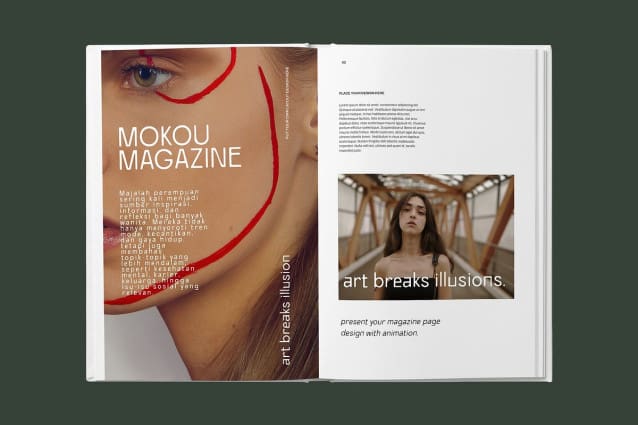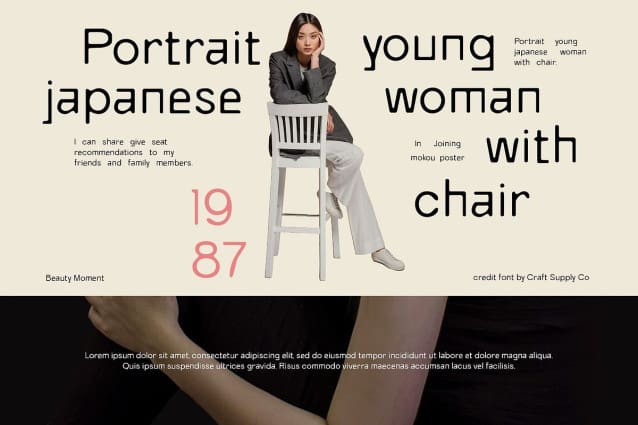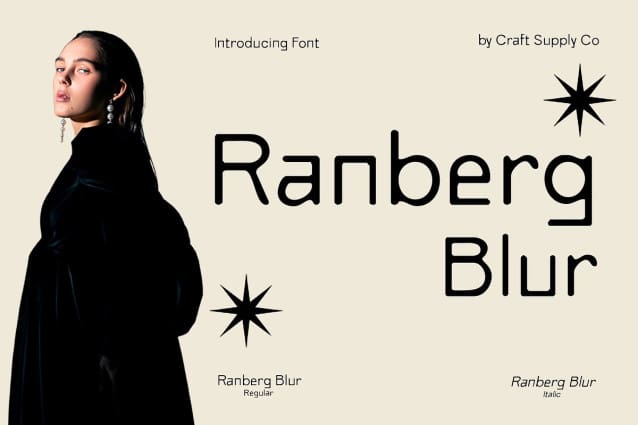
Ranberg Blur Font
Ranberg Blur Font is a modern sans serif font with a unique blend of grotesque and geometric shapes. Its structured lines and sharp angles create a minimalist, striking design that feels both clean and impactful. The strong yet refined letterforms of Ranberg Blur make it a standout choice for projects aiming to emphasize clarity and modern aesthetics, while its geometric influence adds a balanced and harmonious appeal.
Captivating Blur Effect for Soft Dimension A signature blur effect enhances the design, introducing a layer of visual softness that adds depth and intrigue to the font’s otherwise precise, clean forms. This blur not only creates an eye-catching visual impact but also brings a unique dimension, making each letter appear dynamic and contemporary. This feature sets Ranberg Blur apart as a versatile option for projects that seek both sophistication and innovation.
Ideal for Futuristic and Creative Projects Ranberg Blur shines in futuristic and cutting-edge design applications, from sleek branding projects and forward-thinking advertisements to modern editorial layouts. Its combination of minimalism and dimensional effect makes it a perfect choice for websites, posters, and digital interfaces that aim to stand out in style. The font’s modern versatility lends itself well to applications where visual clarity is key, while its unique edge ensures a memorable impression.